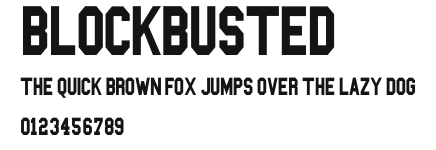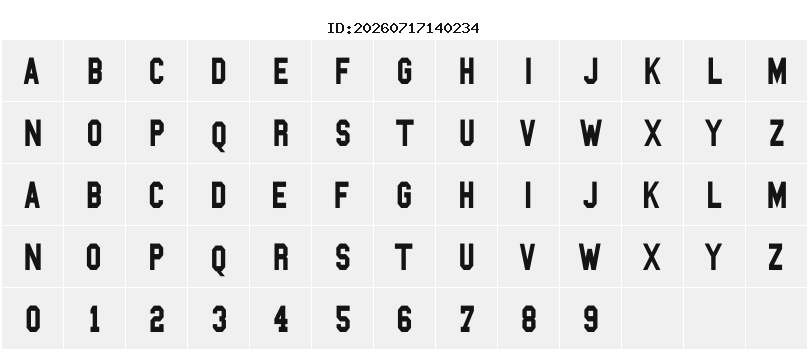
Blockbusted Preview
• Font Name: Blockbusted
• Full Font Name: Blockbusted
• PostScript Name: Blockbusted
About Blockbusted.ttf
Blockbusted.ttf is a modern, elegant sans-serif font designed for ultimate readability and visual harmony. Perfect for branding, headlines, web design, and print materials.